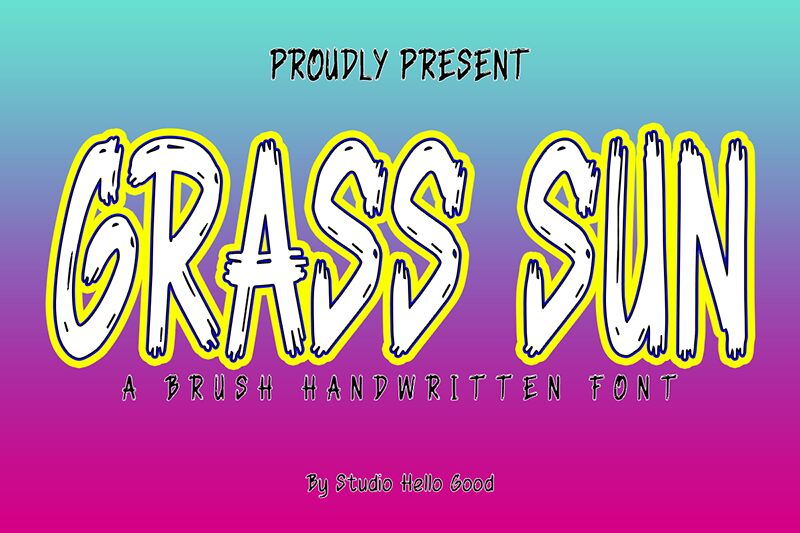
Grass Sun
Grass Sun font by Studio Hello Good is an expressive and energetic brush font. Its textured and grungy appearance gives it a distressed vibe that adds uniqueness in creative projects. Grass Sun’s condensed width makes it space-friendly while the good readability increases its functionality. Overall, the free brush font has all it takes to be modern, playful, or even feminine whenever required.
Use Grass Sun in headings, subheadings, logotypes, magazine covers, posters, flyers, advertisements. Its application also includes books cover design for children’s books or thriller novels. Additionally use it on apparel branding and general packaging of products as well as on business cards and greeting cards. It could also work well on an architectural portfolio presentation!